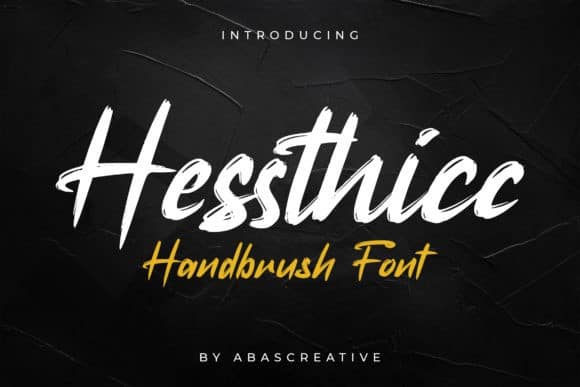
Hessthicc Brush Font
Hessthicc Brush Font is a playful typeface that specially crafted for everyone who love comic style and cartoon font style. It’s designed and shared by AbasCreative.
Hessthic results out of a stunning pairing of a brush pen and pencil that makes it look incredibly endearing and authentic.
You can use this font for making an awesome logo, apparel projects, album cover, poster, label, typography, branding, magazine, social media, & advertisements, but also works great for other projects.